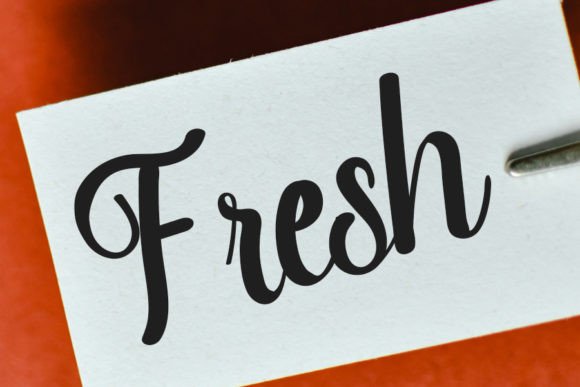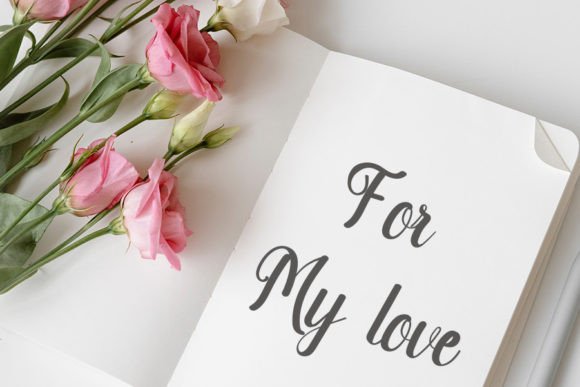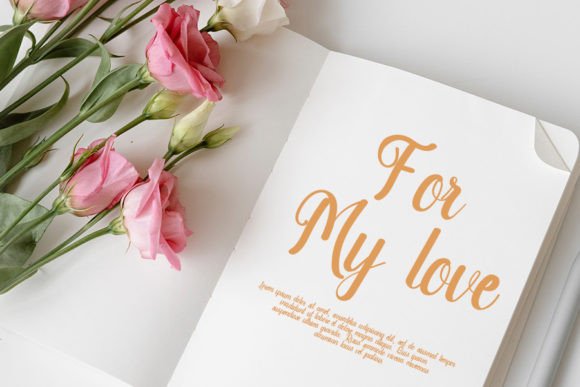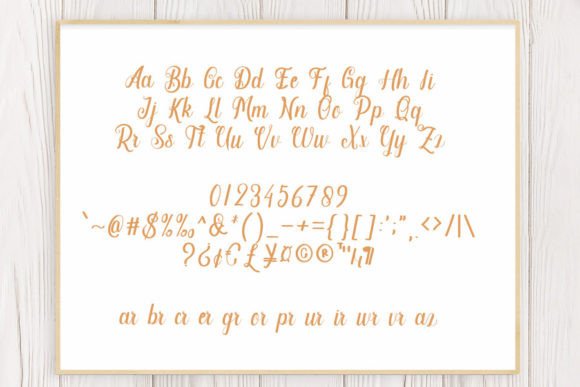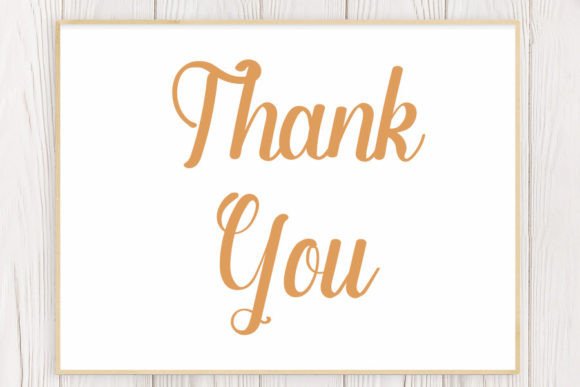
Simply Font
About Simply Handwritten Font
Simply Handwritten Font is a cool and modern script typeface that combines the elegance of calligraphy with the versatility of contemporary design. With balanced proportions and smooth curves, it delivers a clean, professional, yet approachable look. Because of its timeless appeal, Simply Handwritten Font is perfect for branding, packaging, invitations, posters, and social media projects.
A Modern Typeface with Classic Inspiration
Handwritten fonts add charm and personality, and Simply Handwritten Font reflects this beautifully. Its strokes are neither too thin nor too thick, creating a polished rhythm that adapts easily to different creative needs. In addition, its calligraphic influence makes it a great choice for projects requiring elegance and balance.
Special events require fonts that feel unique, and Simply Handwritten Font excels in this role. For example, it can elevate wedding invitations, thank-you notes, and seasonal greetings. Moreover, its handwritten elegance enhances birthday cards, menus, and event flyers, turning them into stylish keepsakes.
A Script Typeface for Branding and Packaging
Businesses and designers will appreciate the versatility of Simply HandwrittenFont. It works wonderfully for logos, product packaging, and boutique branding. Furthermore, it enhances promotional materials, magazine layouts, and social media campaigns. When paired with simple sans serif fonts, it creates a professional and modern contrast.
Flexible Across Print and Digital Media
Another advantage of Simply HandwrittenFont is its flexibility across platforms. In print, it looks stunning on brochures, posters, and merchandise. Digitally, it integrates smoothly into websites, blogs, and online shops. Since it maintains clarity at any size, it works equally well for small stickers and large banners.